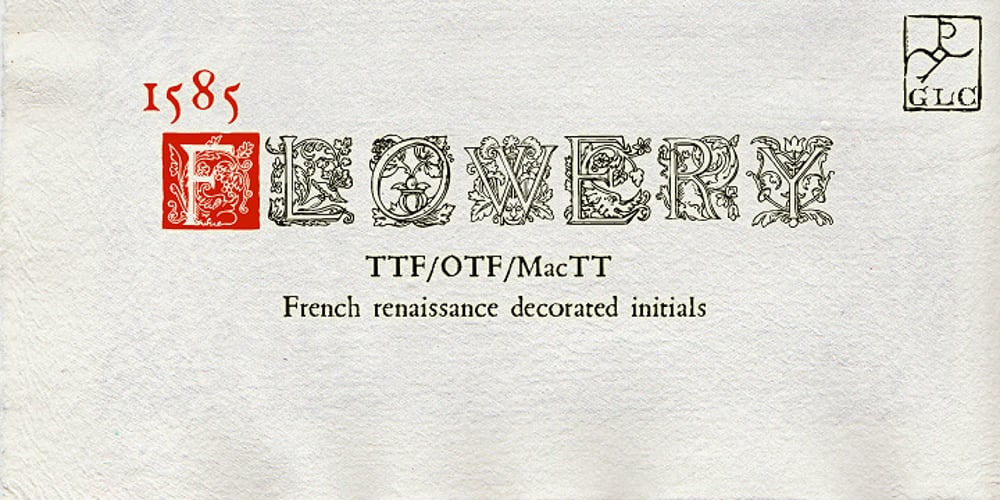
1585 Flowery Font Family was designed by published by GLC. 1585 Flowery contains 1 styles and family package options. This set of initial letters was inspired from French renaissance decorated letters. Unfortunately, we don’t know where they were in use, or who was the punchcutter, our models were coming from a late XIXth century copy. Note: The letters I and J, U and V are not different. It is not a mistake, but it is the exact reflection of what was customary during the period.